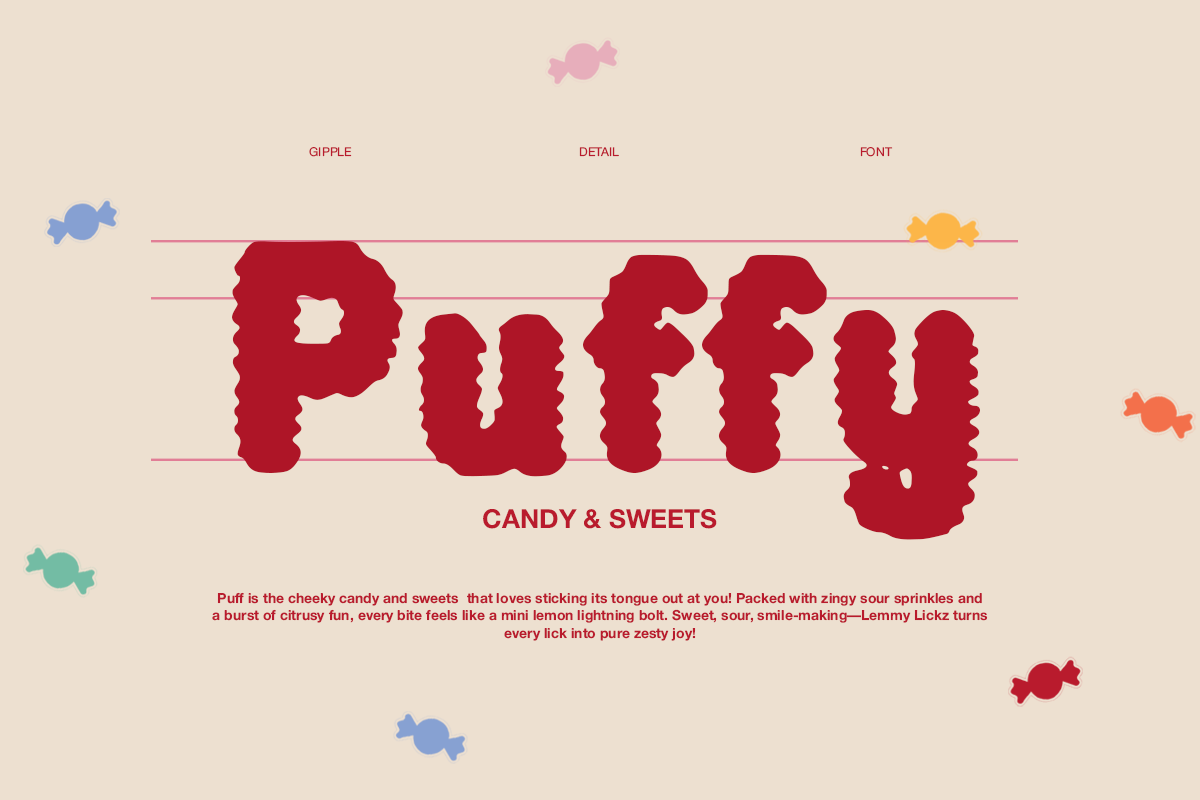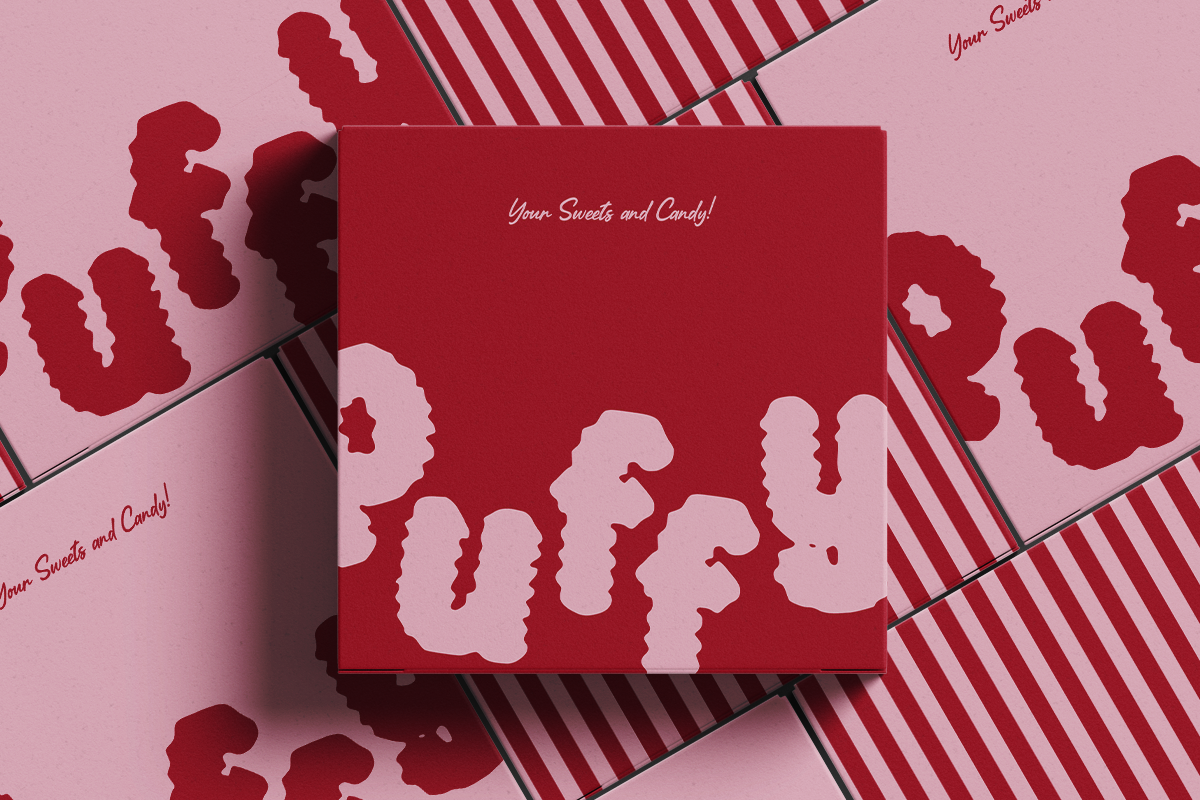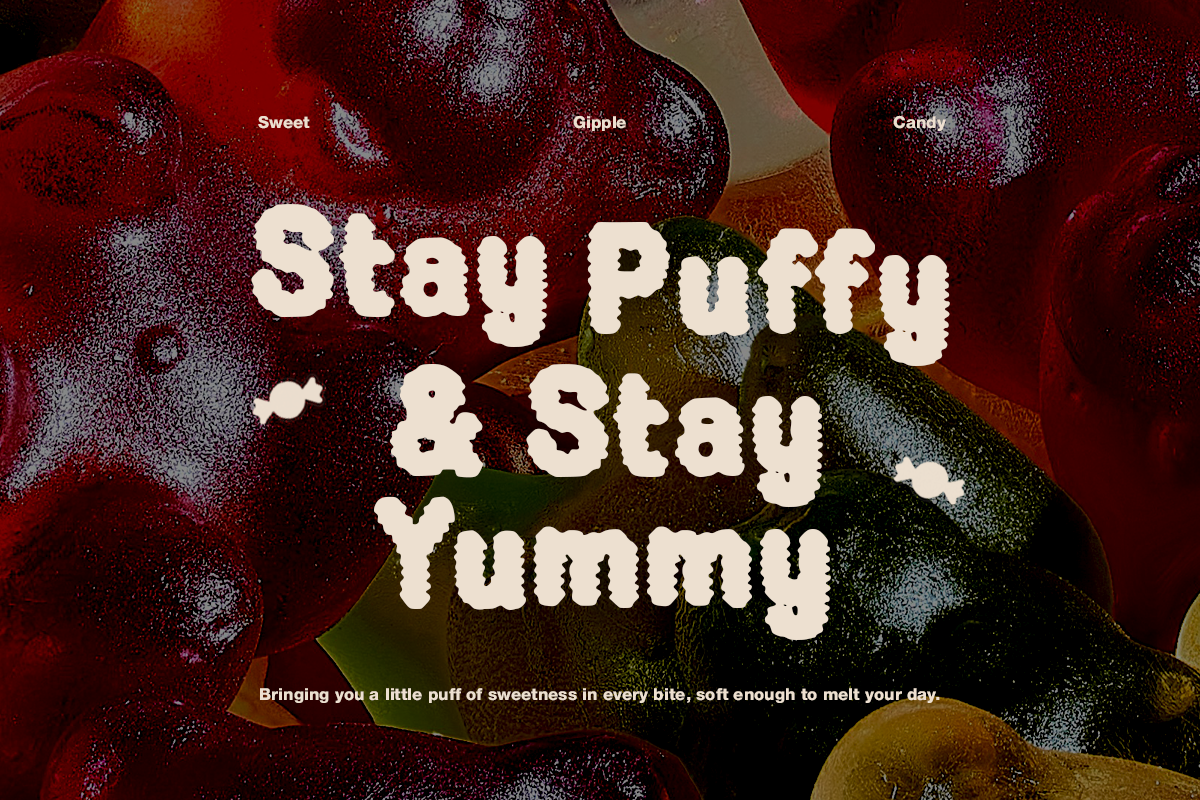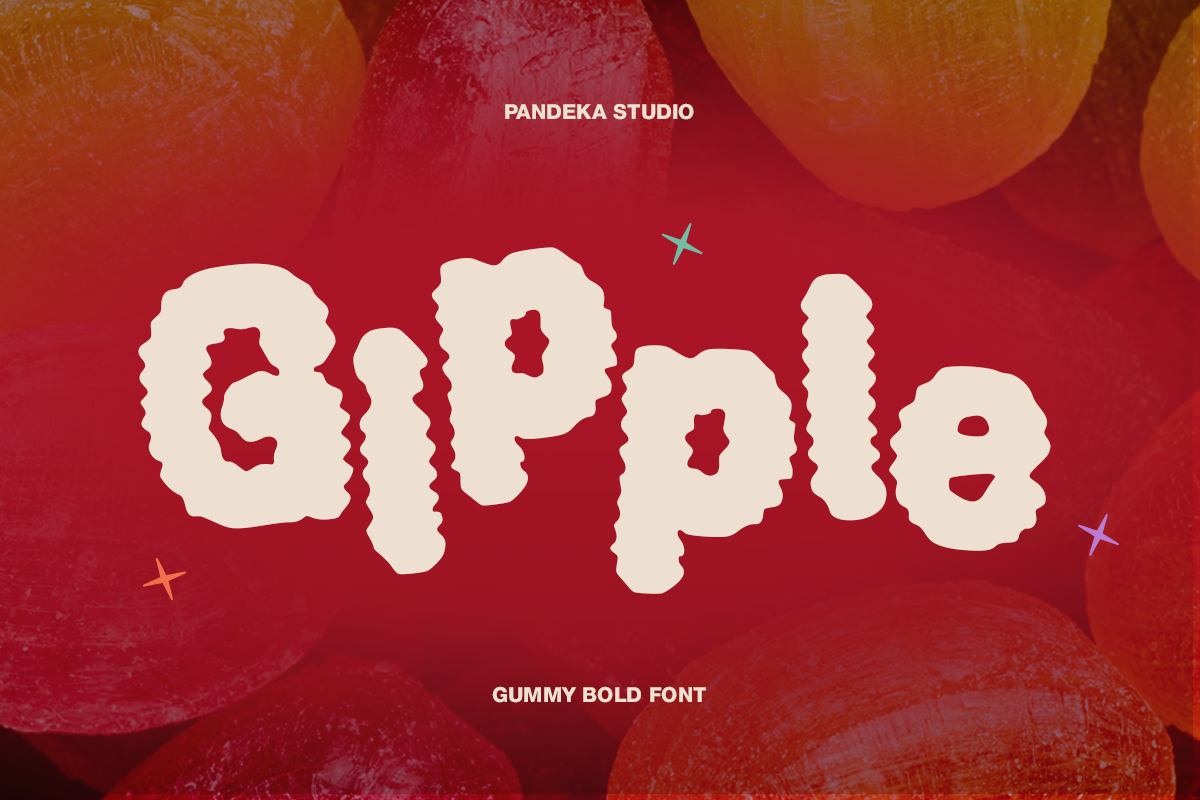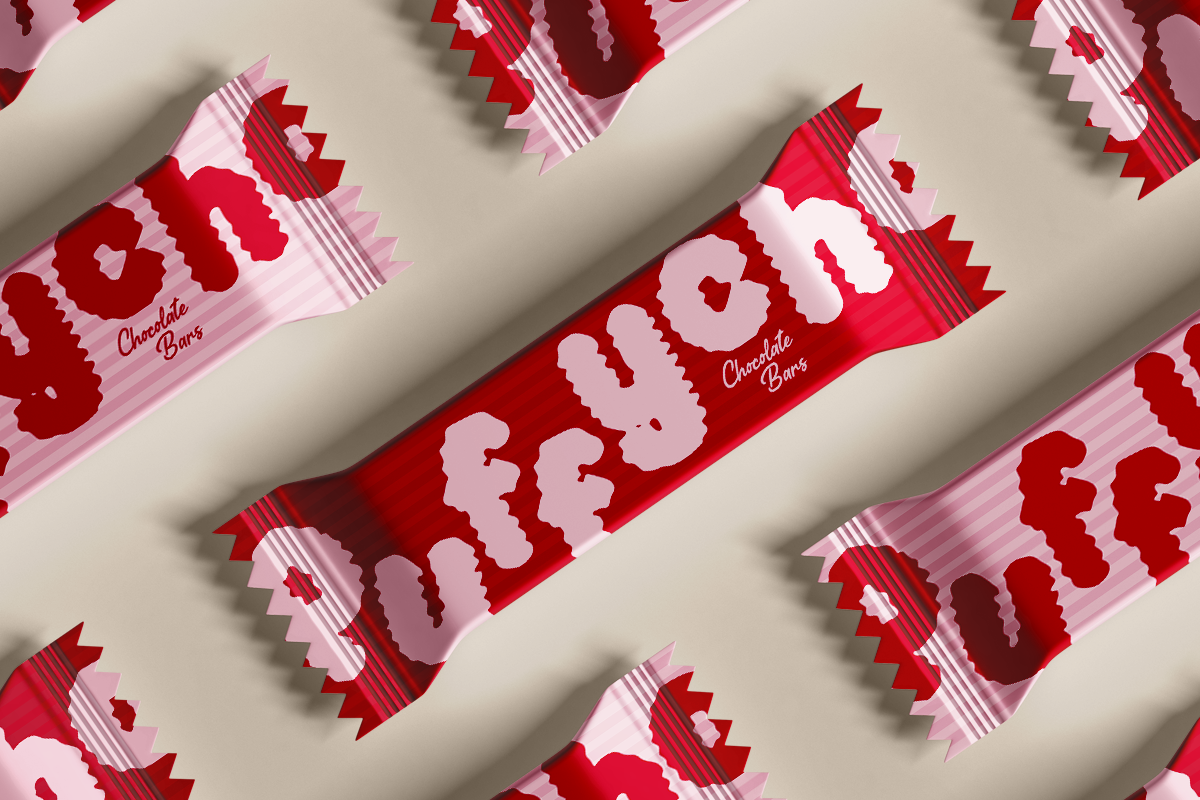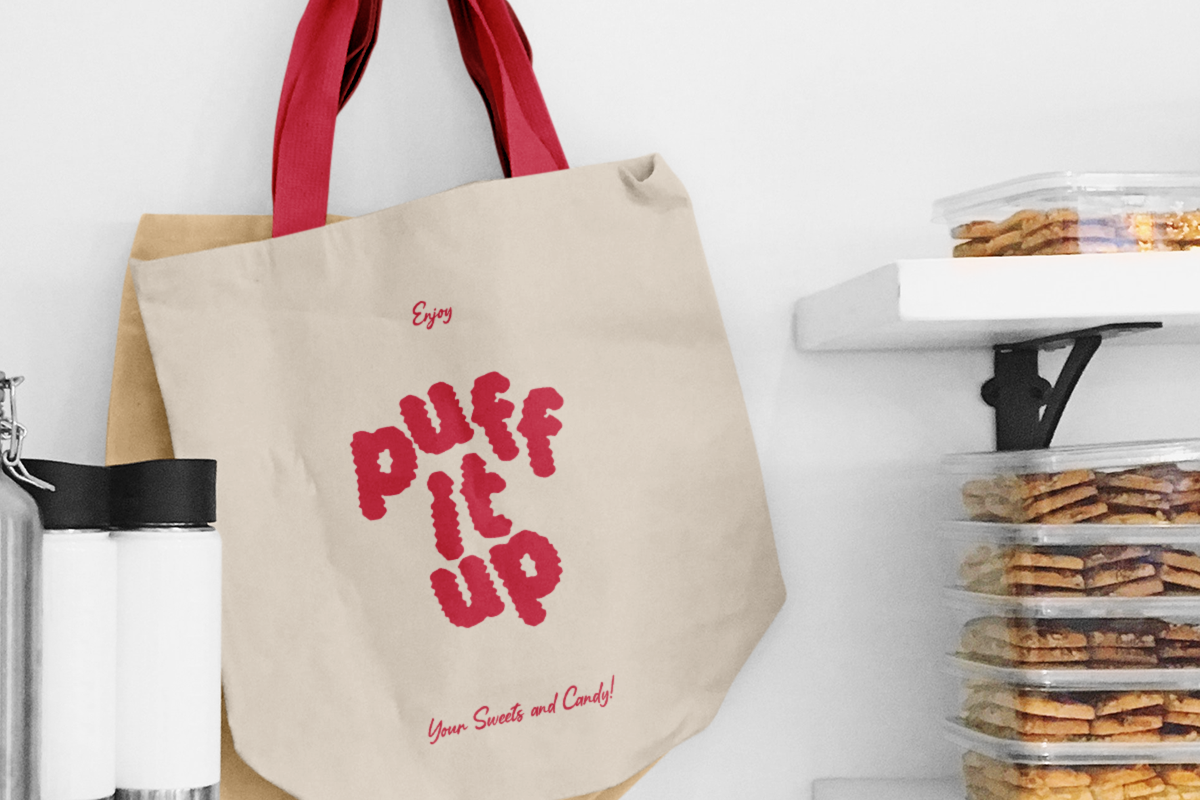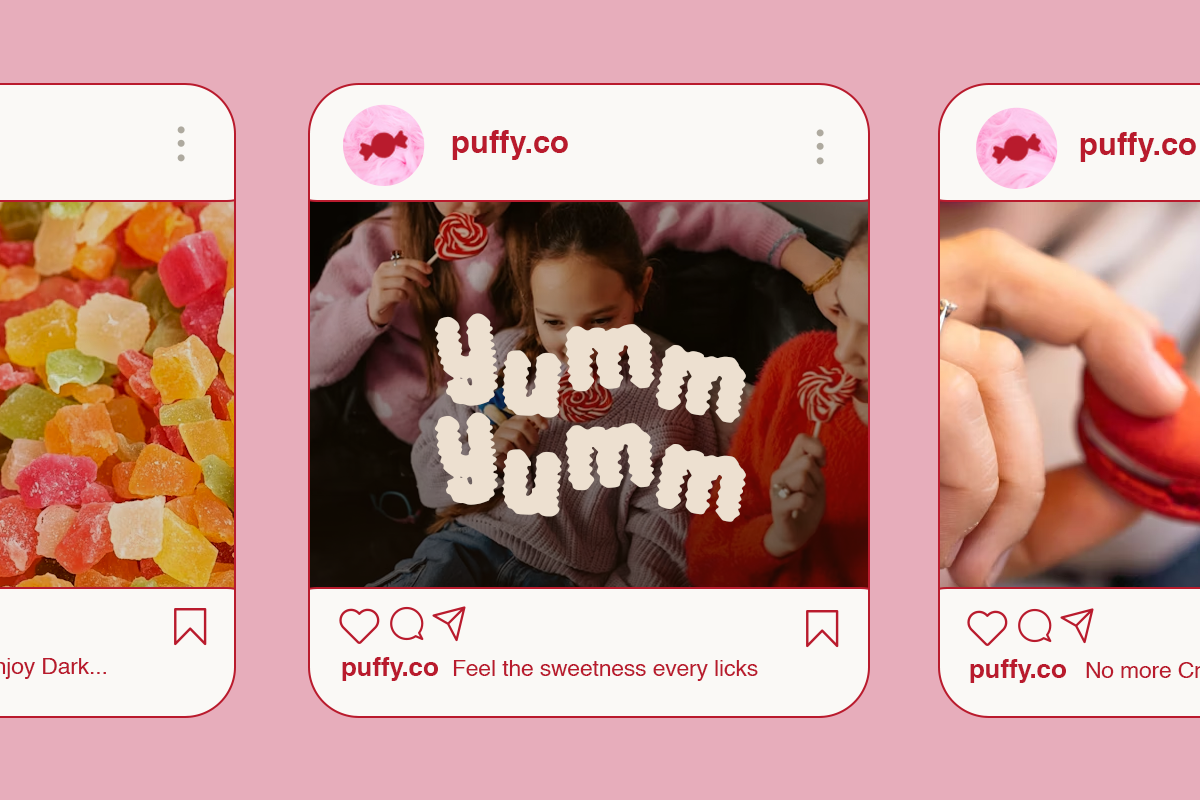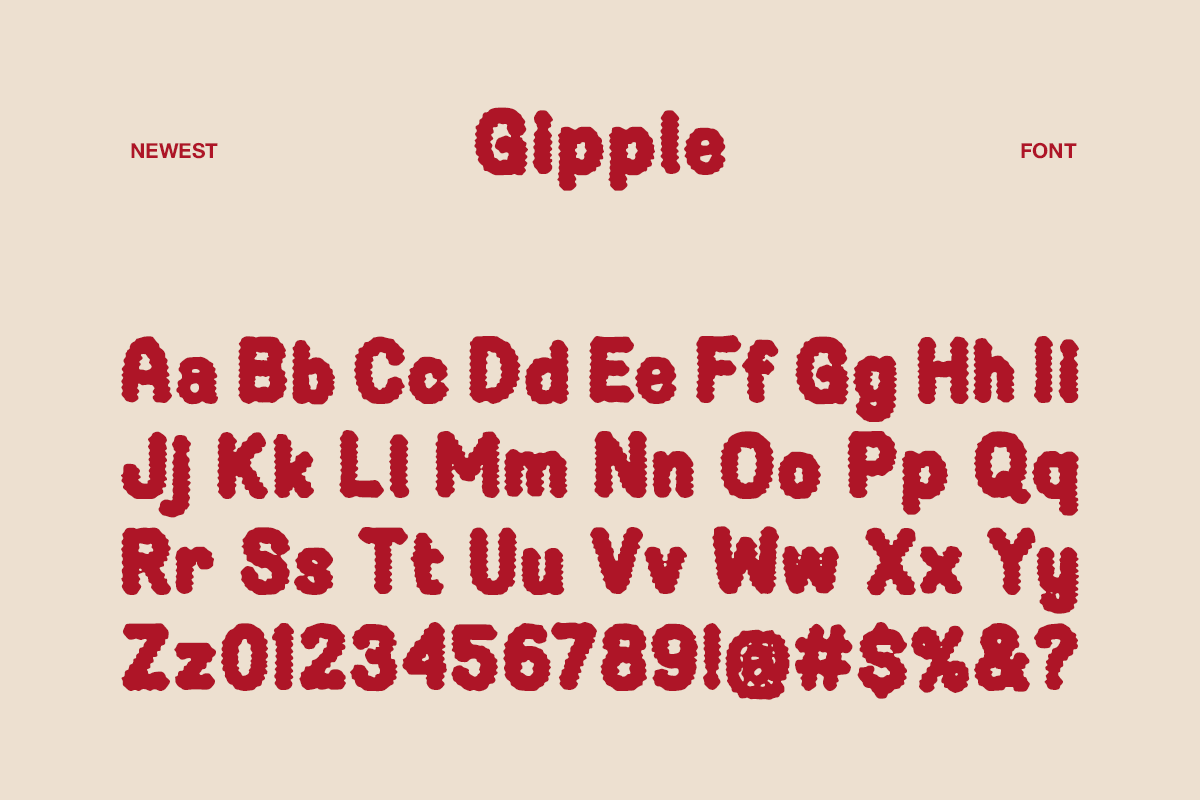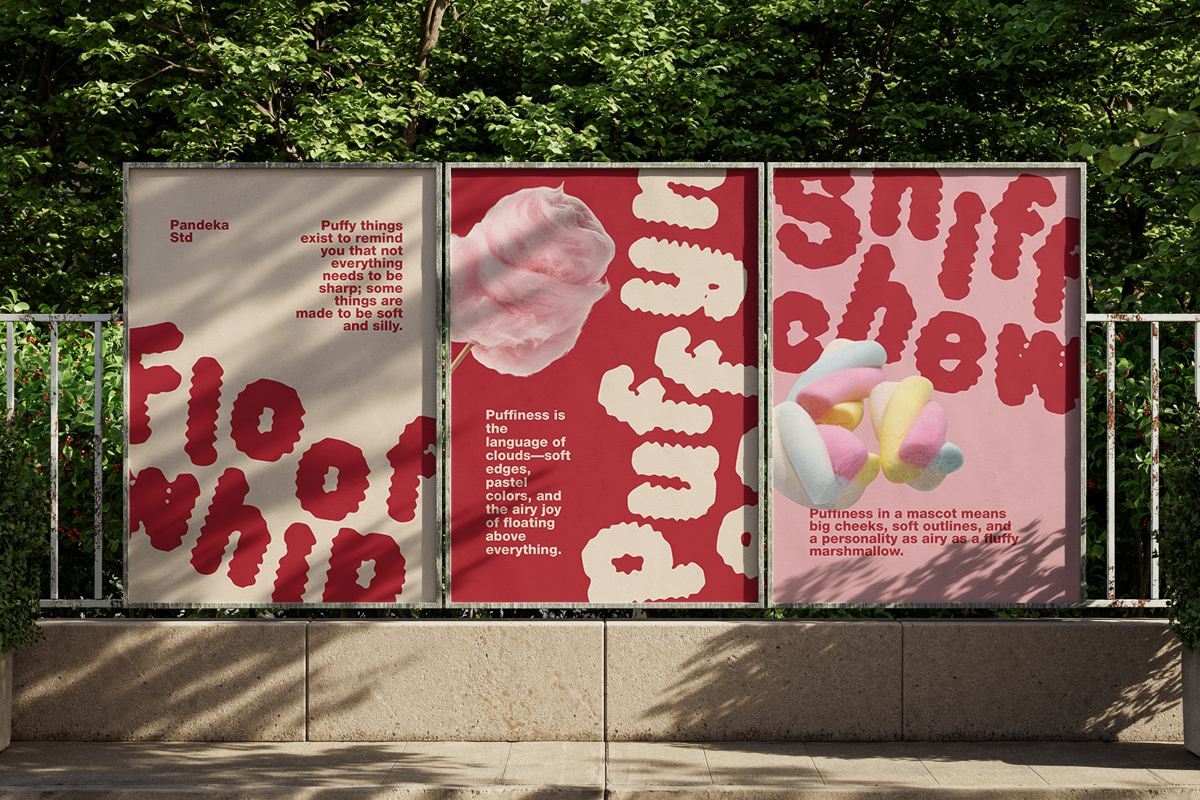
Gipple - Gummy Bold Font
Gipple is a chewy and playful gummy bold font designed to bring a sweet, candy-inspired vibe to your designs. With its soft, bouncy, and irregular bubble shapes, this typeface captures the fun and joyful feeling of gummy snacks, sweets branding, playful packaging, and cheerful visual identities.
Crafted in 1 bold regular style, Gipple delivers a unique gummy texture that makes every design feel tasty, expressive, and full of character. Perfect for candy packaging, kids’ products, social media posts, posters, stickers, branding, and any project that needs a fun and delicious touch.
- Full Character Set: Uppercase, lowercase, numbers, symbols, and punctuation
Make your designs look soft, sweet, and irresistibly gummy with Gipple.